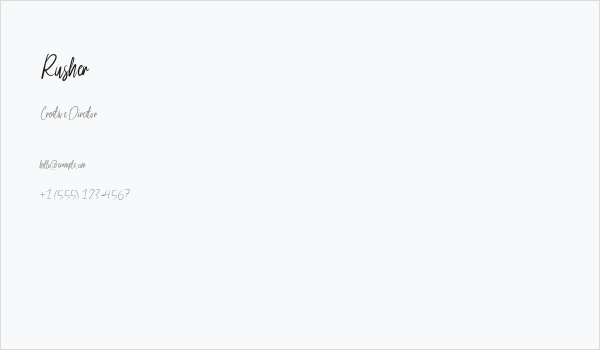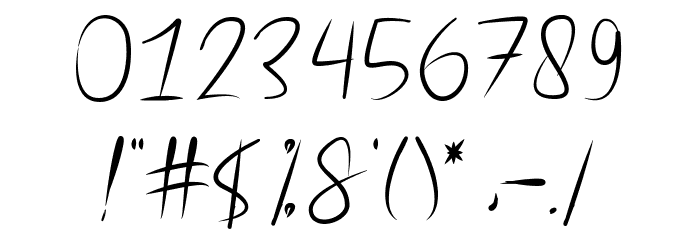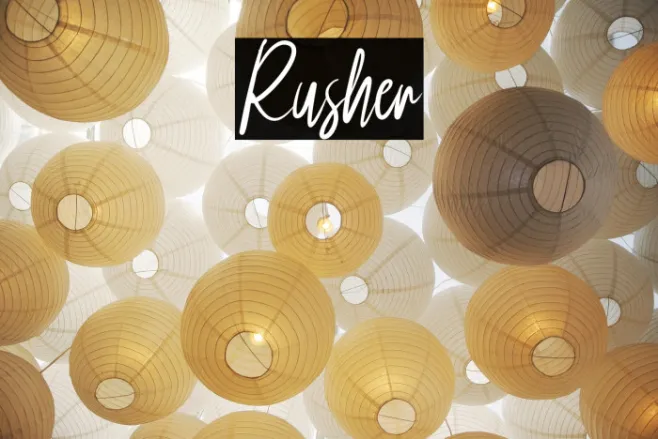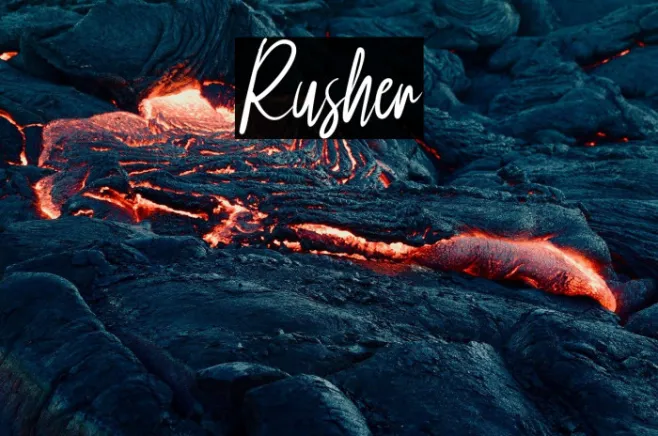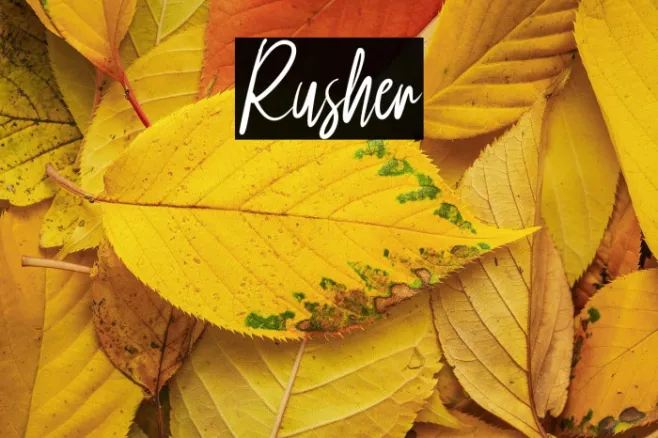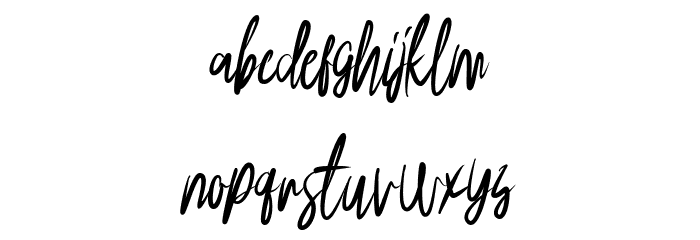
Rusher Font
Rusher Description
This font features a dynamic and fluid handwritten style, characterized by its elegant and flowing script. The uppercase letters are tall and slender, with a slight slant that adds a sense of motion and grace. The lowercase letters maintain a consistent flow, with some characters featuring loops and swashes that enhance its cursive appeal. The numerals are clear and legible, matching the overall aesthetic of the font. Special characters are designed with the same attention to detail, ensuring a cohesive look across all glyphs. This font exudes a modern and stylish vibe, making it suitable for a variety of creative projects.
| Proposed Projects | Ideal for wedding invitations, branding, social media graphics, and personal stationery. |